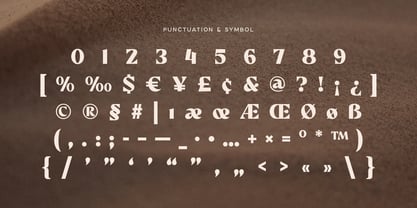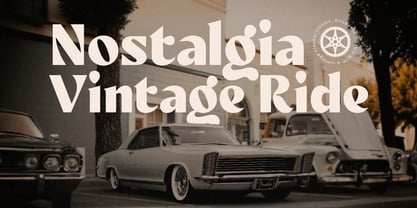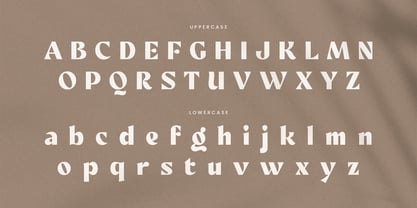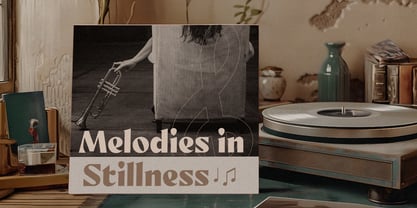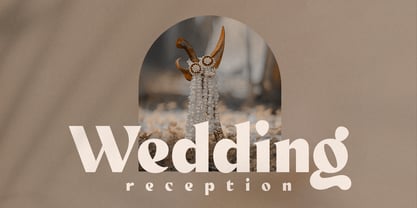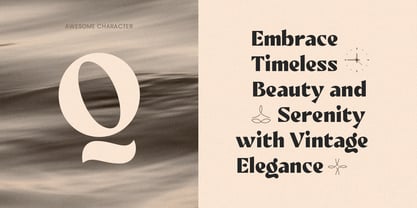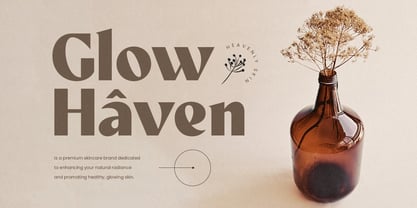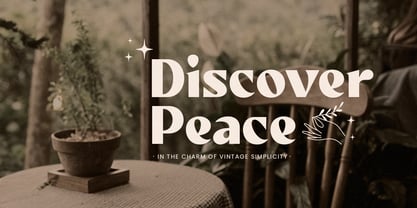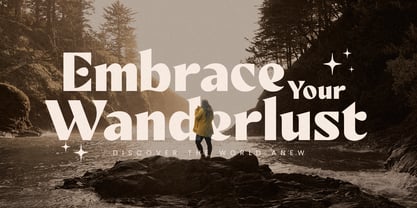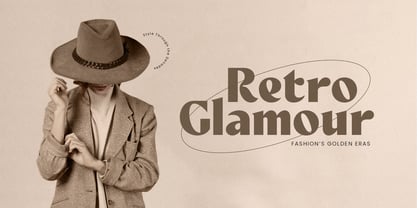
Megalic
by Sensatype Studio
The Megalic Font Family was designed by Zamroni Hamzah and published by Sensatype Studio. Megalic contains 2 styles and family package options.
Megalic - Bold Vintage Font
Megalith is a bold vintage font that captures the spirit of timeless design with its strong, confident letterforms and retro appeal. Ideal for projects that need an impactful yet classic touch, Megalith brings boldness and character to your logos, posters, and branding efforts, making your message stand out with a unique flair.
Inspired by old-school type and retro aesthetics, Megalith delivers a rustic, nostalgic look while maintaining modern usability. Its well-crafted, distinctive shapes make it a versatile choice for various design projects, including headlines, event promotions, and apparel design. The font’s boldness paired with vintage charm ensures a memorable visual presence.
Choose Megalith to add a layer of sophistication and bold energy to your designs. This typeface combines the essence of vintage with a contemporary edge, making it a must-have in any designer’s toolkit looking to create standout, classic projects.
Megalith Bold Vintage Font Features:
• Retro Bold Characters Ready
• Punctuation, Number, and Symbol
• Uppercase and Lowercase
• Opentype Features
Multilingual Characters available for:
Afrikaans, Albanian, Asu, Basque, Bemba, Bena, Breton, Chiga, Cornish, Dutch, English, Estonian, Filipino, Finnish, Friulian, Galician, German, Gusii, Indonesian, Irish, Italian, Kabuverdianu, Kalenjin, Kinyarwanda, Luo, Luxembourgish, Luyia, Machame, Makhuwa-Meetto, Makonde, Malagasy, Manx, Morisyen, North Ndebele, Nyankole, Oromo, Portuguese, Quechua, Romansh, Rombo, Rundi, Rwa, Samburu, Sango, Sangu, Scottish Gaelic, Sena, Shambala, Shona, Soga, Somali, Spanish, Swahili, Swedish, Swiss.